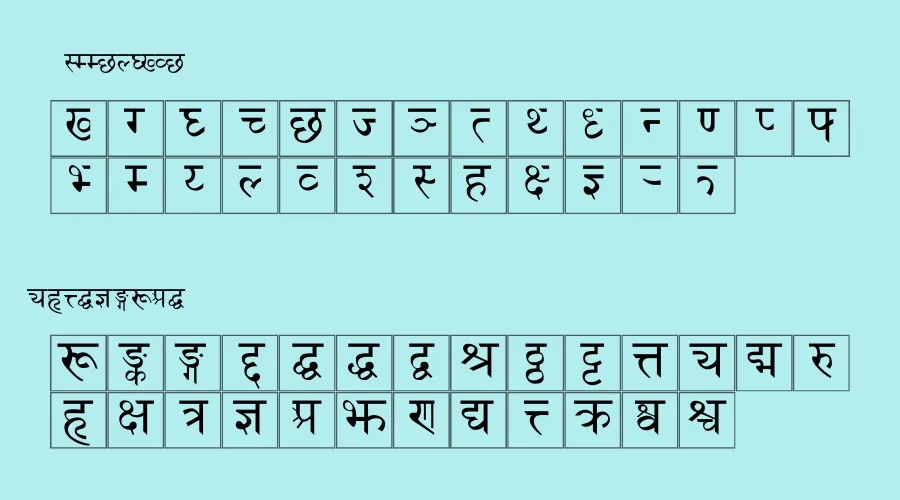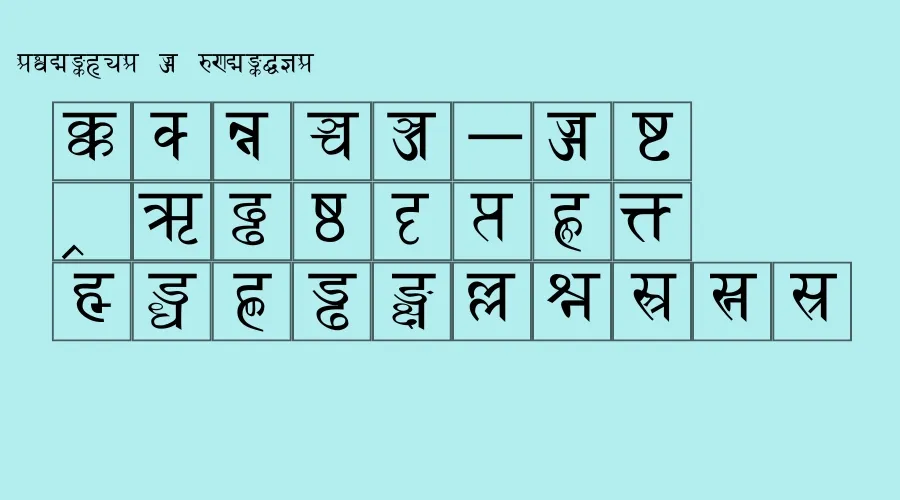
Sanskrit Font
About Sanskrit Font
Page Studio Graphics designed Sanskrit Font with this typeface it is possible to create movie posters with titles. Many YouTubers utilize it to create more beautifully attractive gaming videos and video blogging.
This typeface works well when used in garment designs for items like t-shirts, and pants. It will also be used to create amazing material and images in a variety of styles.
Textbooks, receipts, publishing and magazine graphics, as well as other documents may all be designed with this typeface.
The typeface is perfect for trademarks, websites, and other applications. The online font generator tool may also be used to generate the typeface. If you want to add a charm to any future project, the typeface is perfect.
This design is accessible online through several different sources. The hanging texture typeface is commonly used in a variety of outside advertising campaigns. The font’s unusual material pattern can make any content attractive.
The typeface has been used by several designers for a variety of design projects. This typeface will help you create a unique and fascinating design. It is all compatible with Canva.
You may mix the typeface with another text style in combination to create a unique and appealing project design, which would be a wise decision. The typeface might be a fantastic option for any document that requires a touch of elegance.
Style Sans-Serif